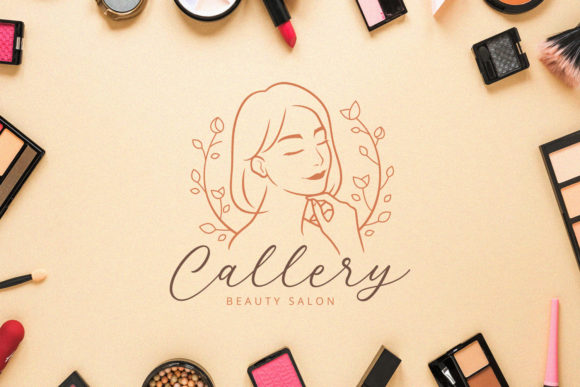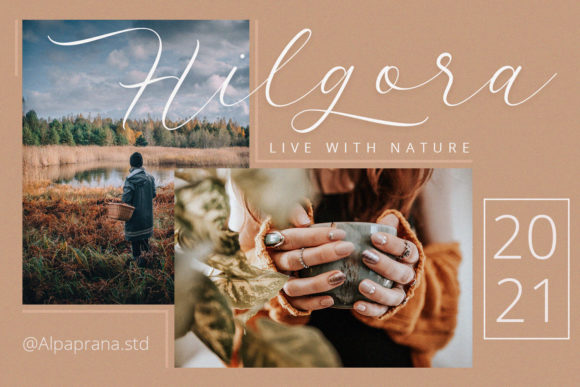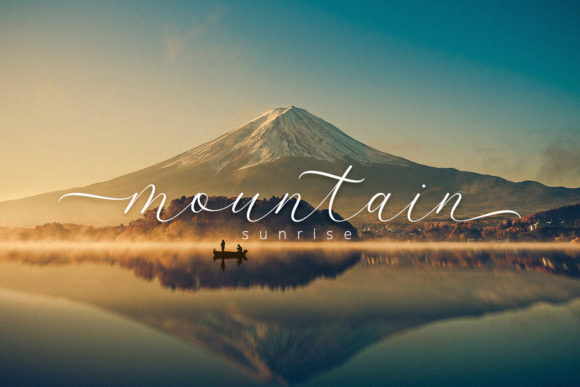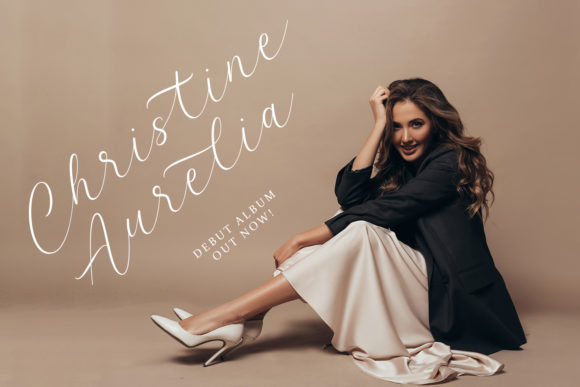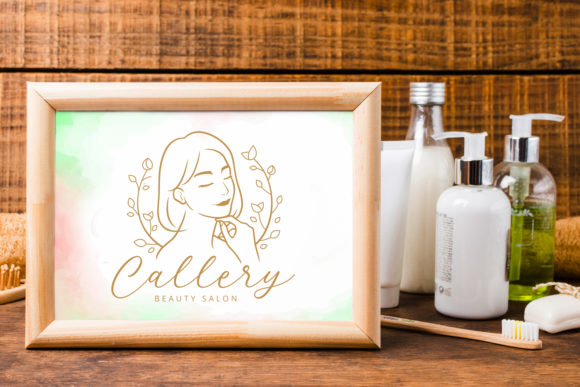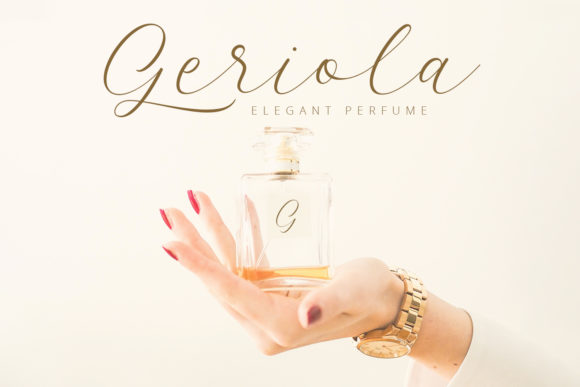
Introduction to Latterday Font Font
Fonts play a crucial role in design, and the Latterday Font font is a typeface that brings both character and versatility to any project. Whether you’re working on a branding project, a website, or a print design, the Latterday Font font offers a unique style that can elevate your work.
Latterday is a beautiful light handwritten font with a unique feel and a stunning impact.
It will add a luxury spark to any design project that you wish to create This font is PUA encoded which means you can access all of the amazing glyphs and ligatures with ease.
The Latterday Font font is more than just a typeface – it’s a design tool that helps you communicate your message with style and clarity. Its unique character set and versatile design make it suitable for a wide range of applications, from elegant invitations to bold headlines.
With its carefully crafted letterforms and balanced proportions, the Latterday Font font ensures readability and visual appeal across all mediums.
The Latterday Font font stands out with its unique design, exceptional readability, and versatility across various design applications.